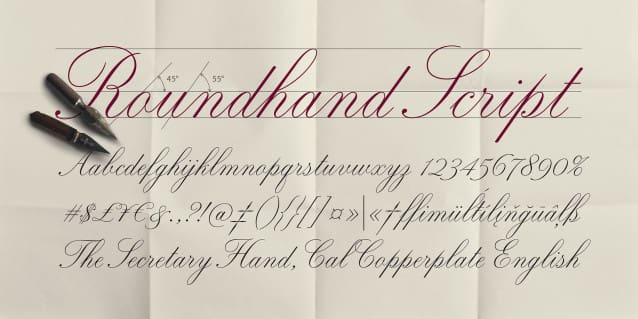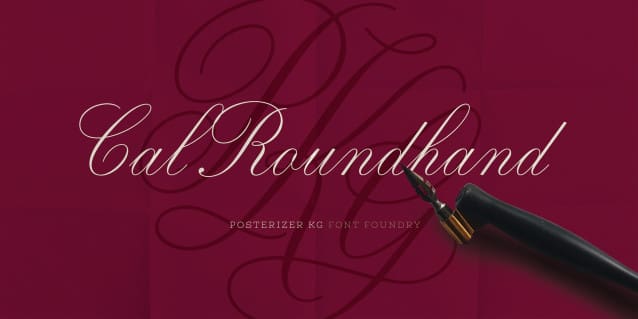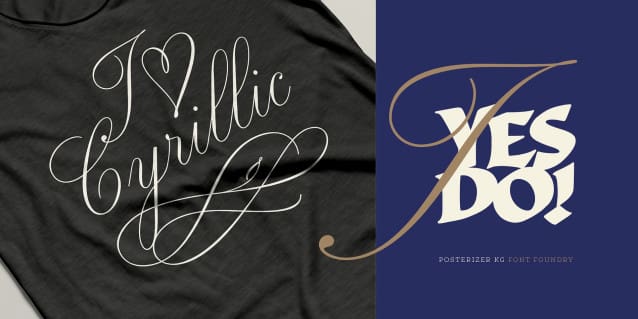
Cal Roundhand Font
Cal Roundhand Font is one more PKG calligraphy font based on traditional manuscript – English Roundhand. Our initial idea was to create flexible, sophisticated and elegant script typefaces based on classical Roundhand (well-known as Copperplate) Script, characterized by an open flowing calligraphic style and subtle contrast of thick and thin strokes deriving from metal pointed nibs in which the flexibility of the metal allows the left and right halves of the point to spread apart under light pressure and then spring back together. It was the most widespread script in the period between the 17th and 18th centuries in Europe and North America, a script that visually presents a spirit of the Baroque applied art at it’s best, till today.
Cal Roundhand typeface is very useful for calligraphic sketches creating, mimesis of ancient manuscripts, and many trendy needs of typographers too. Font contains multilingual Latin and Serbian and Macedonian Cyrillic.